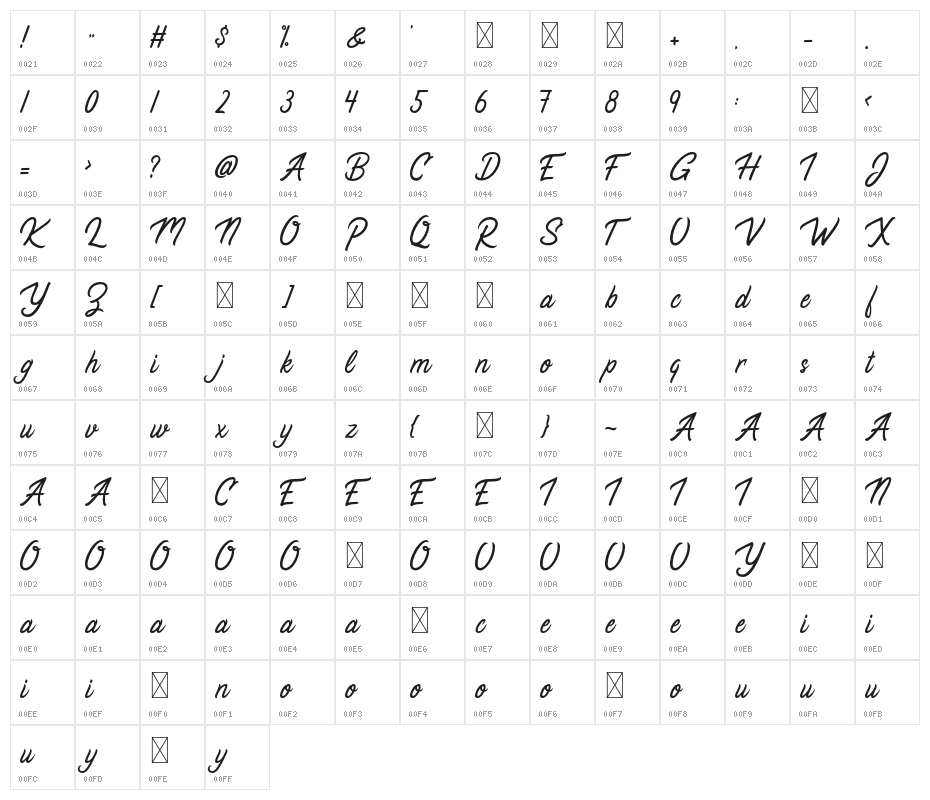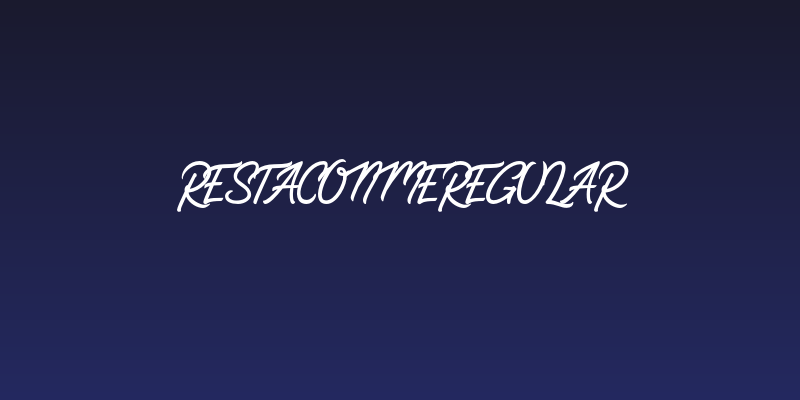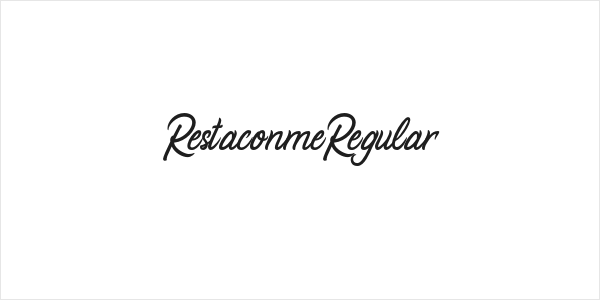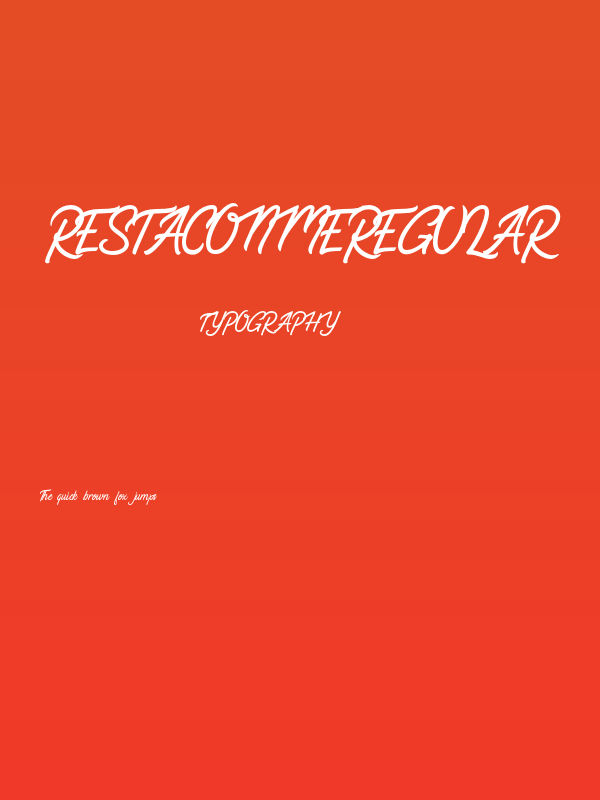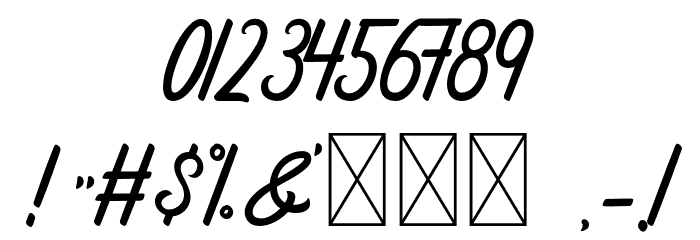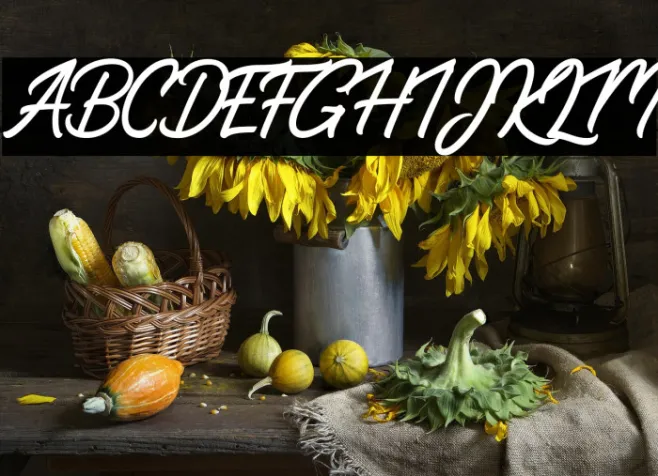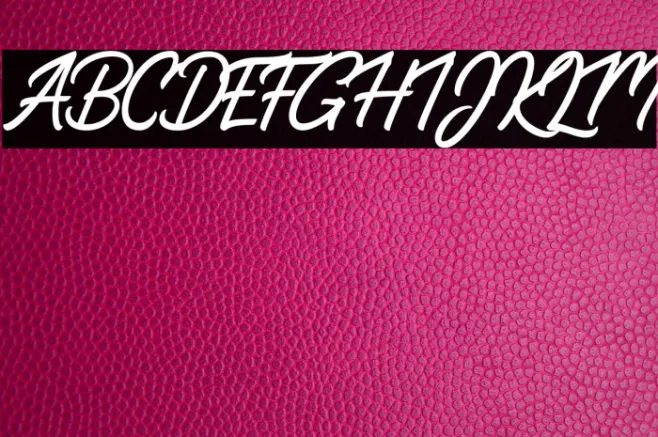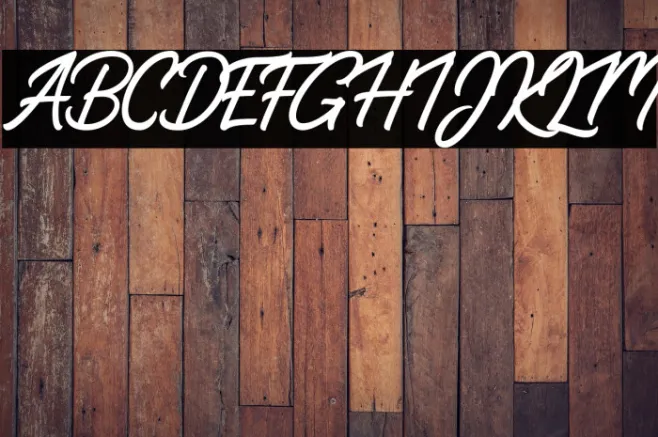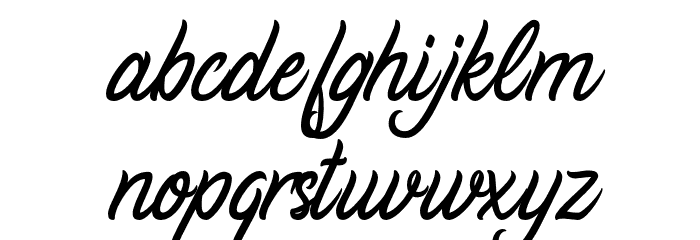
RestaconmeRegular Font
RestaconmeRegular Description
This font features a flowing, cursive style that exudes elegance and sophistication. The letters are interconnected with smooth, sweeping strokes, giving it a handwritten appearance. The uppercase letters are bold and prominent, while the lowercase letters maintain a consistent flow, enhancing readability. The numbers are styled to match the cursive theme, maintaining the overall aesthetic. Special characters are included, complementing the font's cohesive look. This font is ideal for projects that require a touch of class and personal flair.